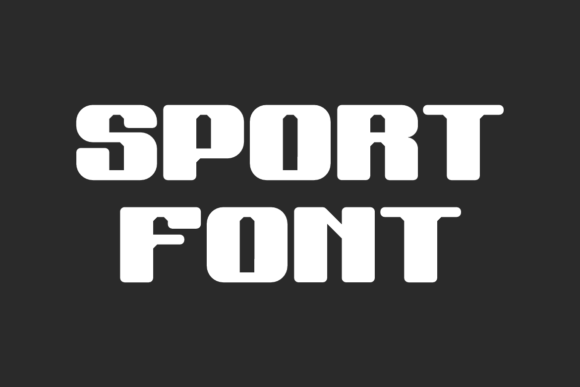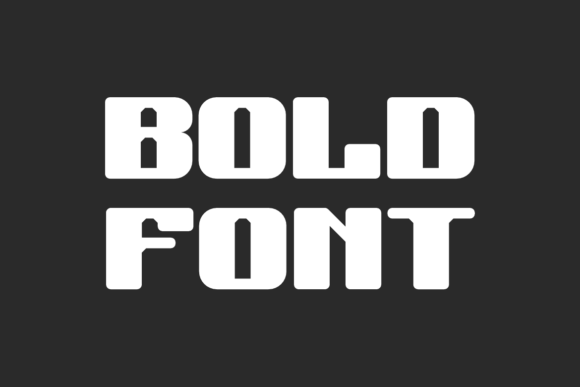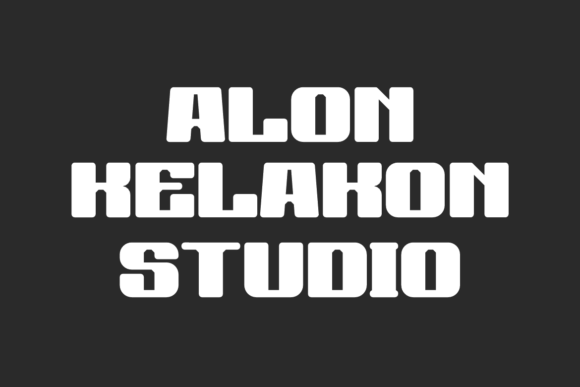
Introduction to Kozer Gepros Font
Have you ever found yourself stuck in a creative rut, searching for the perfect font to bring your project to life? I know I have. It’s like trying to find the missing piece of a puzzle, and when you finally do, it’s like a breath of fresh air. That’s exactly what the Kozer Gepros Font is – a game-changer for any creative project.
This bold and assertive sans serif font is a valuable addition to any designer’s library, offering the potential to elevate any creation with its high-quality design. Whether you’re working on a logo, brochure, or website, Kozer Gepros Font is sure to make a statement. And the best part? It’s available for free download, making it an accessible design resource for anyone looking to take their projects to the next level.
Key Features of Kozer Gepros Font
- High-quality design font suitable for various creative projects, including graphic design, digital art, and print media.
- Features a transparent background, allowing for seamless integration with any design element.
- Designed with a unique aesthetic, making it perfect for adding a touch of personality to any creative project.
- High-resolution design (300 DPI) ensures crisp and clear text output, ideal for print media and high-quality digital displays.
Honest Review: Kozer Gepros Font
I recently stumbled upon the Kozer Gepros Font, and I must say it’s been a game-changer for my creative projects. This font is a great design resource that offers a high-quality experience.
What works well: ✨ The Kozer Gepros Font is incredibly versatile and can be used for a wide range of creative projects, from print to digital. The transparent background is a huge plus, making it easy to use in any design scenario. The font’s modern aesthetic is also a major plus, adding a touch of sophistication to any project.
Some limitations: ⚠️ While the Kozer Gepros Font is a great free download, it’s not without its limitations. The font’s character set is a bit limited, and it may not be suitable for projects that require a wide range of special characters.
Overall, I’m thoroughly impressed with the Kozer Gepros Font. It’s a high-quality design resource that’s perfect for anyone looking to add a touch of modern flair to their creative projects. Whether you’re a seasoned designer or just starting out, this font is definitely worth checking out.
- High-quality design resource
- Modern aesthetic
- Wide range of creative applications
How to Use Kozer Gepros Font
The Kozer Gepros Font is suitable for a variety of creative projects, including graphic design, digital art, and publishing. Its high-quality features and transparent background make it an ideal design resource for professionals and hobbyists alike.